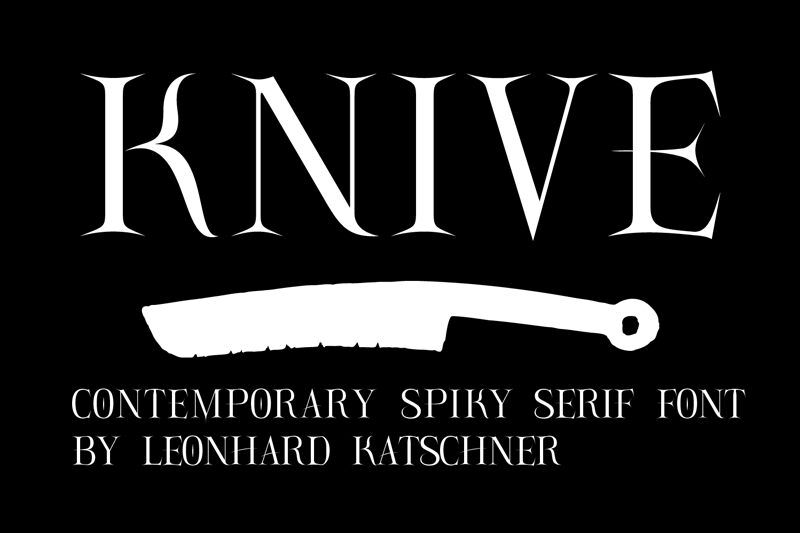
Knive Regular
Knive font by Leonhard Katschner is the epitome of elegance and modernism. The free serif font exhibits a sophisticated, gothic style with clean serifs giving the text additional beauty and charm. Its letters preserve traditional presence, delivering legibility and readability for titles, body text, advertsing materials, or any other project at hand.
Enjoy Knive in advertising projects or use it for event branding like gala dinners and weddings. Other options include posters and flyers design, magazine layouts especially those related to fashion or artists reviews, elegant business cards typography or overlays on apparel items such as T-shirts and more.